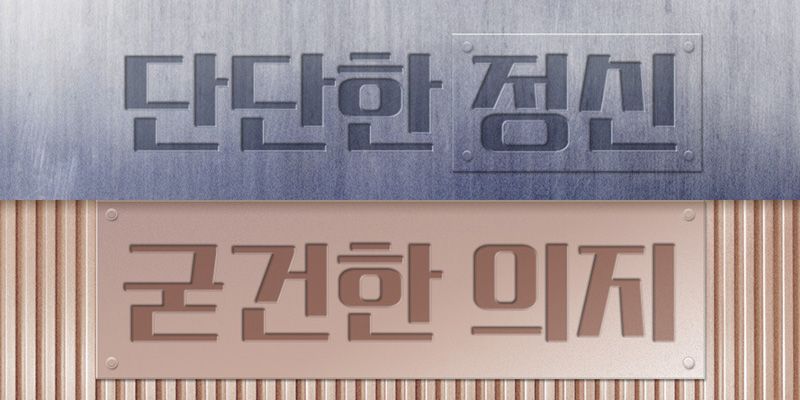
Rix Super Robot Font Free Download is a futuristic and bold typeface inspired by robotic and sci-fi aesthetics. With its sharp angles, strong lines, and tech-inspired design, this font is perfect for projects that need a dynamic, high-tech look, such as video game branding, sci-fi posters, tech-related designs, and modern digital interfaces.
Rix Super Robot Font Free Download combines a robotic feel with high readability, making it an ideal choice for both display and body text in creative designs. Its futuristic design makes it stand out, making your typography both impactful and highly stylized.
Whether you're working on a tech startup's branding, a sci-fi themed event, or any design that needs a futuristic touch, Rix Super Robot adds the perfect visual flair to your project.